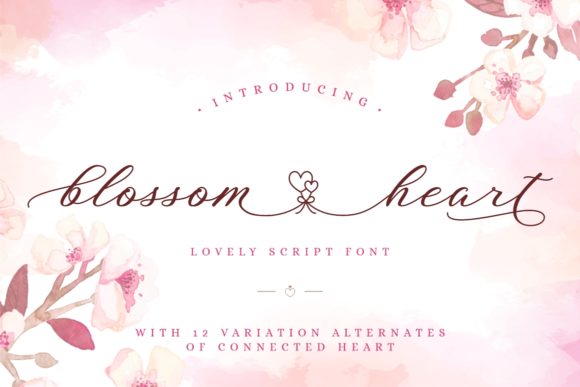
Journey into the realm of enchanting typography with Blossom Heart Font, a script font adorned with delicate hearts that will make your creations bloom with romance. Crafted by the talented putracetol, this font possesses a timeless charm that will leave an indelible mark on your designs.
Blossom Heart's meticulously crafted characters dance across the page with an air of elegance and grace. Each letter is a work of art, adorned with tiny hearts that add a touch of whimsy and delight to your words. Whether you're creating wedding invitations, love letters, or heartfelt messages, Blossom Heart will transform your words into a symphony of visual beauty.
Beyond its captivating aesthetics, Blossom Heart is a versatile font that offers a wide range of creative possibilities. Its PUA encoding allows for effortless access to all of the font's glyphs and swashes, empowering you to unleash your creativity and add intricate details to your designs. Experiment with different combinations of letters, hearts, and swashes to create unique and eye-catching compositions that will leave a lasting impression.
Embrace the beauty of Blossom Heart and let your creativity flourish. Discover the joy of creating designs that capture the essence of love, romance, and timeless elegance. Let Blossom Heart be your muse and watch as your words transform into works of art that resonate with your audience.